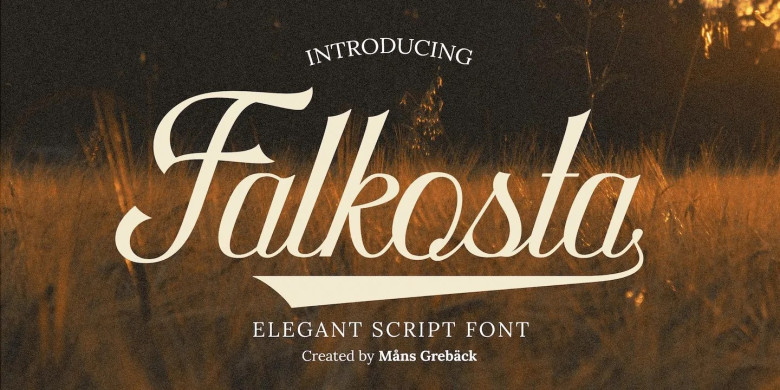
Falkosta Font
Falkosta is a brand-new, handwritten calligraphy font that we fell in love with from the first sight. It’s a cursive script with a varied base line, fine lines, and classic elegant touches. Made and published by Mans Greback in 2022, cursive typeface has character.
This font can be utilized to create vintage logotypes or a printed brand for your firm. This work can be used as the title of this article. Note: Use underscore _ in any part of a word to make a swash below the word.
Falkosta Calligraphy Script Font